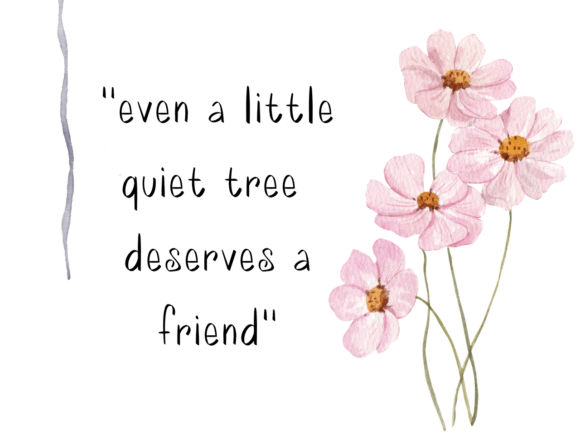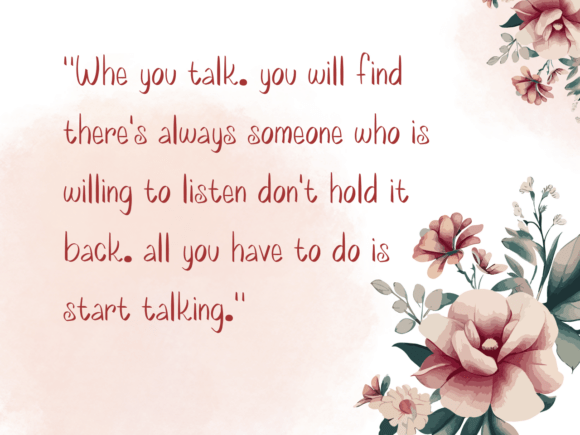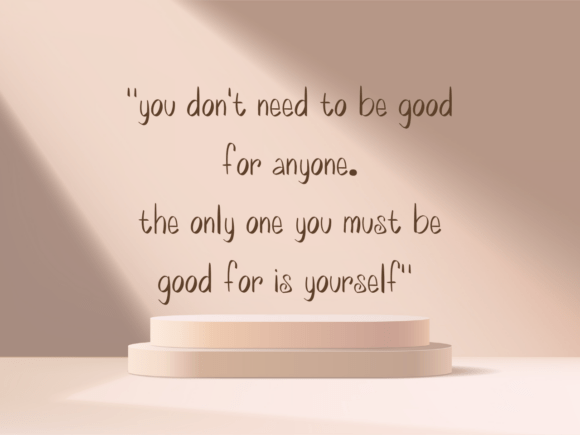
Introduction to Poppykevin Font
As a designer, have you ever been stuck in a creative rut, searching for the perfect font to elevate your project? You’re not alone. We’ve all been there, scrolling through font collections, hoping to stumble upon that one unique piece that sets our work apart. That’s exactly where the Poppykevin Font comes in – a game-changing design resource that’s about to revolutionize the way you approach typography.
With its bold, handcrafted aesthetic, the Poppykevin Font is a high-quality addition to any creative project. Whether you’re crafting a wedding invitation, a logo, or a set of teaching materials, this ingenious font provides the freedom to create a design that truly reflects your unique style. And the best part? It’s available for free download, making it an accessible resource for designers of all levels.
Key Features of Poppykevin Font
- High-quality design for creative projects: Poppykevin Font is perfect for artists, designers, and writers looking to add a unique touch to their work.
- Unique characteristics: Poppykevin Font features a distinctive and playful style, making it perfect for projects that require a creative and eye-catching font.
- Design resource: This font is an excellent addition to any designer’s toolkit, providing a versatile and high-quality design resource for various creative projects.
Honest Review: Poppykevin Font
I recently had the chance to work with the Poppykevin Font, and I must say, it’s been an interesting experience. As a designer, I appreciate fonts that can bring a unique touch to a creative project. The Poppykevin Font is a great example of this, with its playful and whimsical feel.
- High quality design: The Poppykevin Font has a crisp and clear design, making it perfect for both digital and print projects.
However, there are some limitations:
- Limited font styles: While the Poppykevin Font is beautiful, it’s only available in a few styles, which may limit its versatility for certain projects.
- Not suitable for formal projects: Due to its playful design, the Poppykevin Font may not be the best choice for formal or professional projects.
Overall, I think the Poppykevin Font is a great addition to any designer’s toolkit, but it’s essential to use it judiciously and consider the project’s requirements and tone.
Common Use Cases for Poppykevin Font
The Poppykevin Font is a versatile design resource suitable for various creative projects, including logo design, branding, and infographic creation.